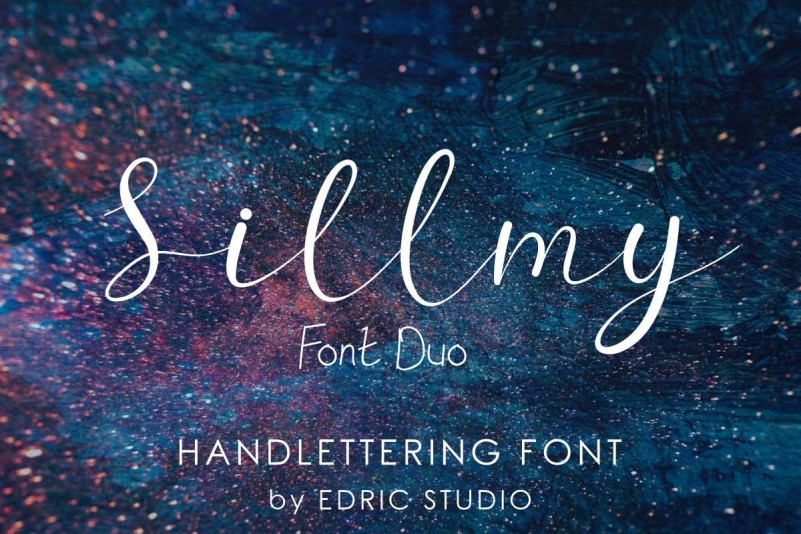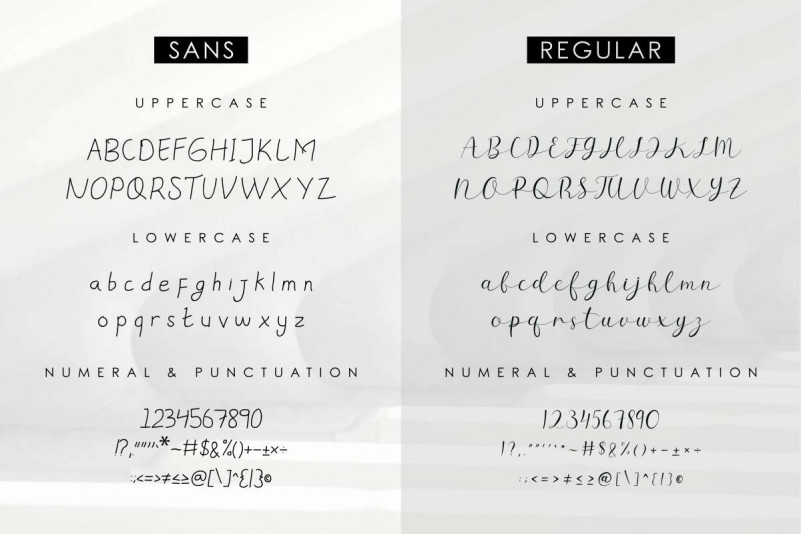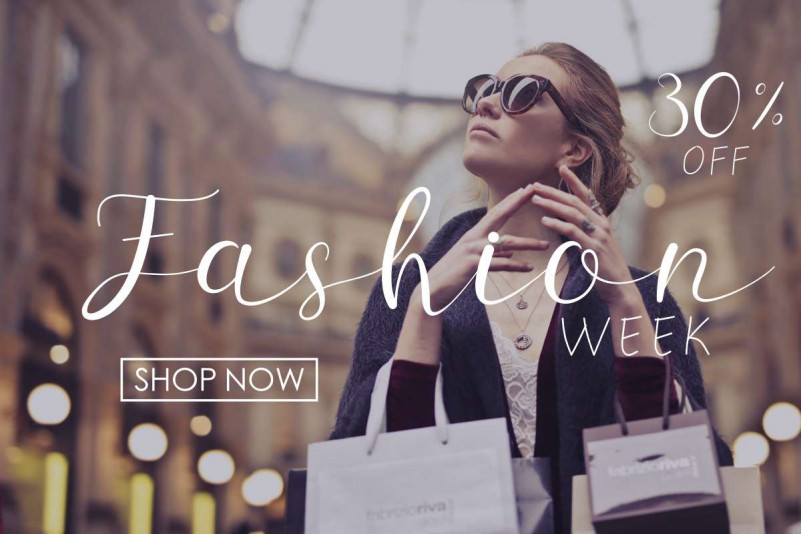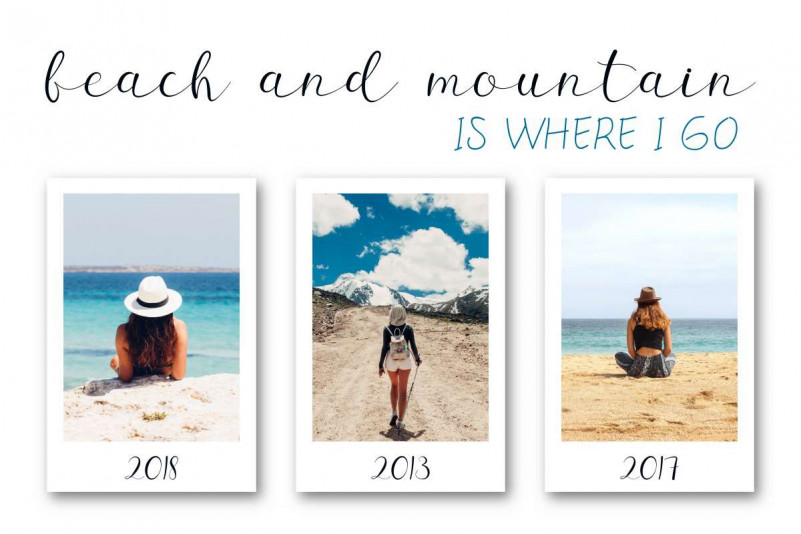
Sillmy Script Font Duo
Hei , please meet our latest font : Sillmy Script Font Duo! Sillmy is a font family consist of two different styles: Handwriting caligraphy and sans display Sillmy has a unique glyphs . With your creativity, there no limits in using it . It will be cool for many projects : Magazine Wedding, professional, person name, signature, modern, law firm, makeup artist, photography, travel, hotel, fashion, cafe, cake-food etc. Flyer, banner, promotion, brochure, logotype (need extended license), social media, quote etc